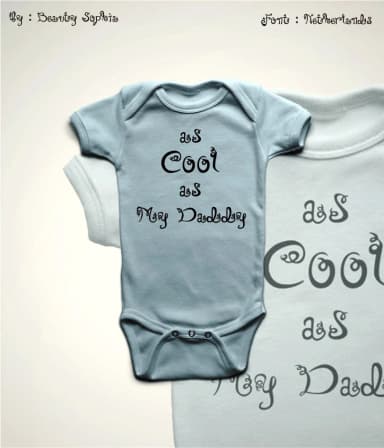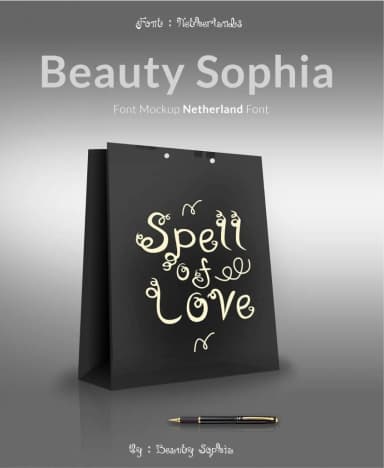
Netherlands Font by beautysophia is a flowing handwritten script that brings organic elegance to creative projects across diverse industries. Inspired by European aesthetics and the designer's deep appreciation for Dutch culture, landscape, and visual heritage, this typeface captures the natural, personal touch that modern designers seek when their work demands authentic character. The script works beautifully across applications where authenticity matters, where audiences expect to feel a genuine human hand behind every letterform. This handwritten script excels in projects requiring authentic hand-lettered warmth and memorable character development. Wedding invitation suites gain immediate distinction when set in this font, while boutique branding packages benefit from its personalized approach that speaks directly to discerning clients. Greeting card designs feel more intentional with every carefully-crafted letter, and custom product packaging gains the artisanal quality that captures attention on retail shelves. Small DIY craft signage and social media graphics also benefit tremendously from its conversational, approachable feel. The Netherlands Font provides a refreshing alternative to purely geometric scripts, making it ideal for designers who want their work to feel distinctly handmade rather than mass-produced. Whether you're creating business stationery, personalizing custom gifts, developing a lifestyle brand aesthetic, or crafting special occasion designs, this typeface connects with audiences through genuine charm and accessible character. Get Netherlands Font on Creative Fabrica today to transform your designs with authentic hand-lettered elegance.
Netherlands Font is a script font that shines as a display or heading face. Pair it with a clean sans-serif or serif font for body text — the contrast creates a clear hierarchy while the two styles stay balanced and easy to read.
Netherlands Font
by beautysophia